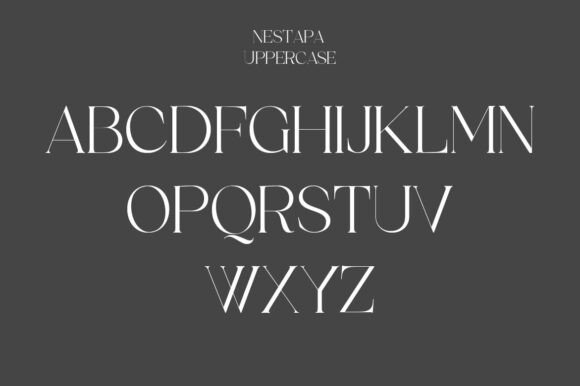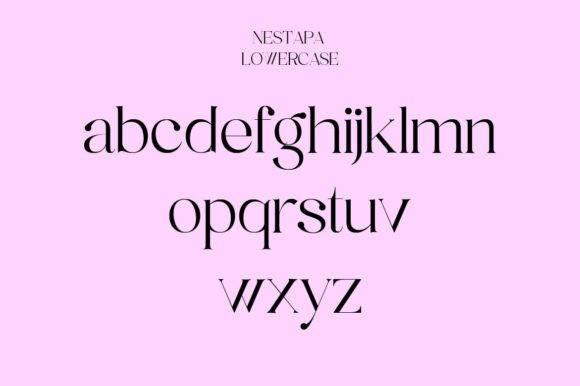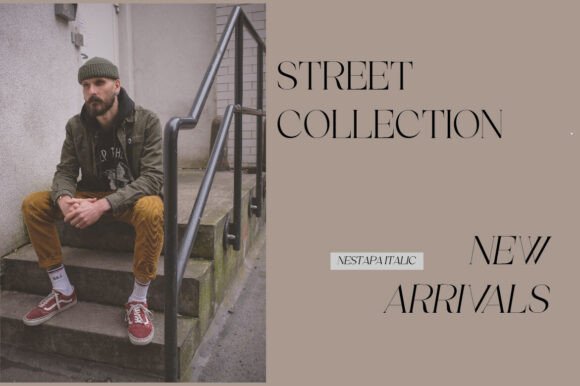
Introduction to Nestapa Font
Welcome to the versatile world of Nestapa font.
Presenting a chic, modern serif font that marries elegance with utility It flaunts a clean, easy-to-read design, ideal for a broad range of creative ventures.
Key Features of Nestapa Font